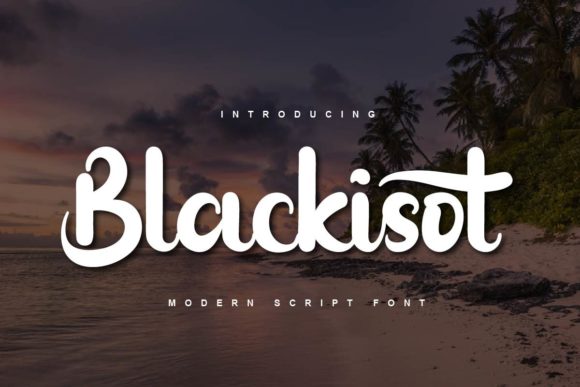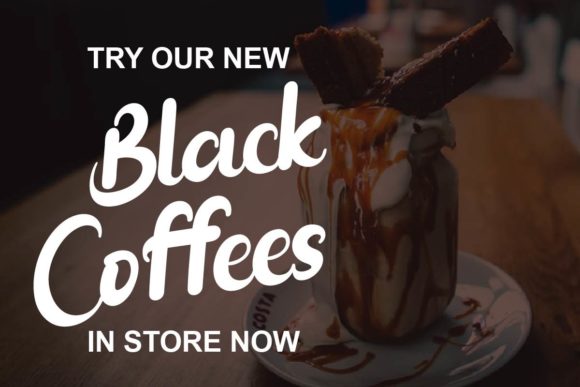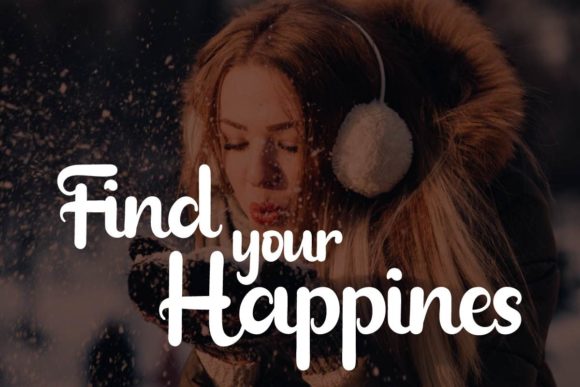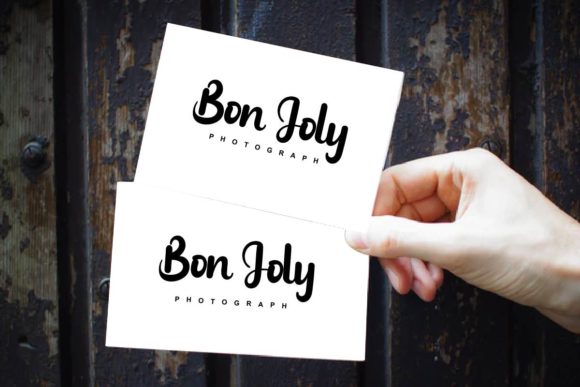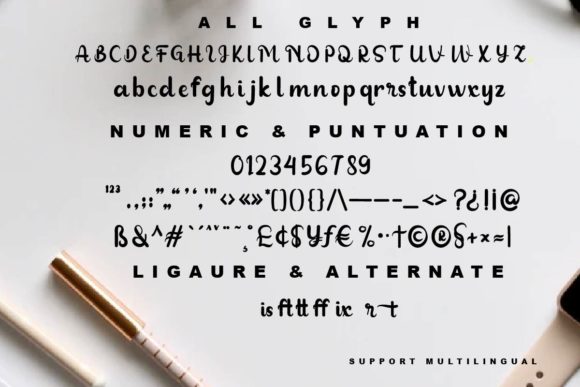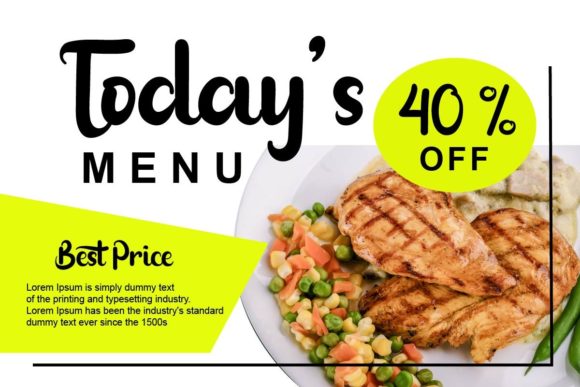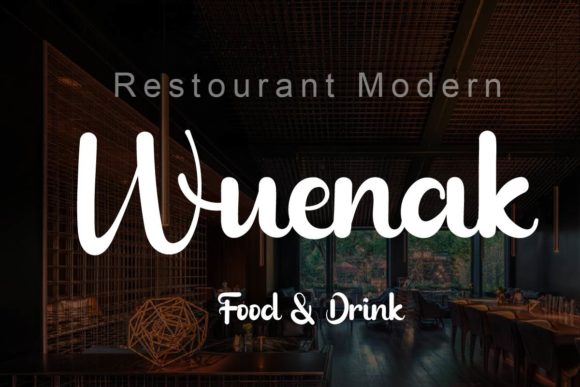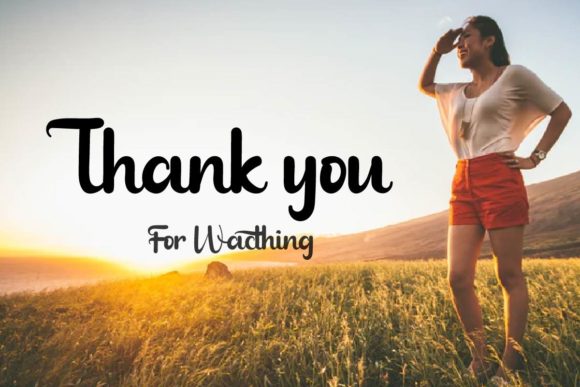
Blackisot Font
About Blackisot Font
Introducing “Blackisot,” a chic and friendly handwritten font that is sure to add a touch of charm to your design projects. With its versatile and friendly style, Blackisot can be easily matched to a wide range of projects, making it a valuable asset in your creative toolkit.
The chic and stylish appearance of Blackisot gives your designs a modern and sophisticated touch. Its clean and legible letterforms make it suitable for a variety of projects, including branding, logos, packaging, social media graphics, invitations, and more. Whether you’re working on a professional or personal project, Blackisot will bring a fresh and contemporary vibe to your designs.
The friendly and approachable nature of Blackisot makes it ideal for creating engaging and memorable designs. It can be used to evoke a sense of warmth, playfulness, or casual elegance, depending on the context. Whether you’re designing for a trendy lifestyle brand, a creative blog, or a friendly local business, Blackisot will help you capture the attention of your audience.
One of the strengths of Blackisot is its versatility. It can easily adapt to different design styles and themes, making it suitable for a wide range of projects. From modern and minimalist designs to whimsical and fun creations, Blackisot seamlessly integrates into various design aesthetics. It can be paired with other fonts, illustrations, or graphics to create a cohesive and visually appealing composition.
Moreover, Blackisot is easy to work with and allows for customization to fit your specific needs. You can adjust the letter spacing, size, and weight to achieve the desired look and feel. This flexibility enables you to create unique and personalized designs that align with your creative vision.
In summary, Blackisot is a chic and friendly handwritten font that adds a touch of charm to any design project. Its versatility, clean letterforms, and approachable style make it suitable for a wide range of projects, from branding to social media graphics. Add Blackisot to your creative ideas and discover how it can make your designs stand out with its chic and friendly vibe.